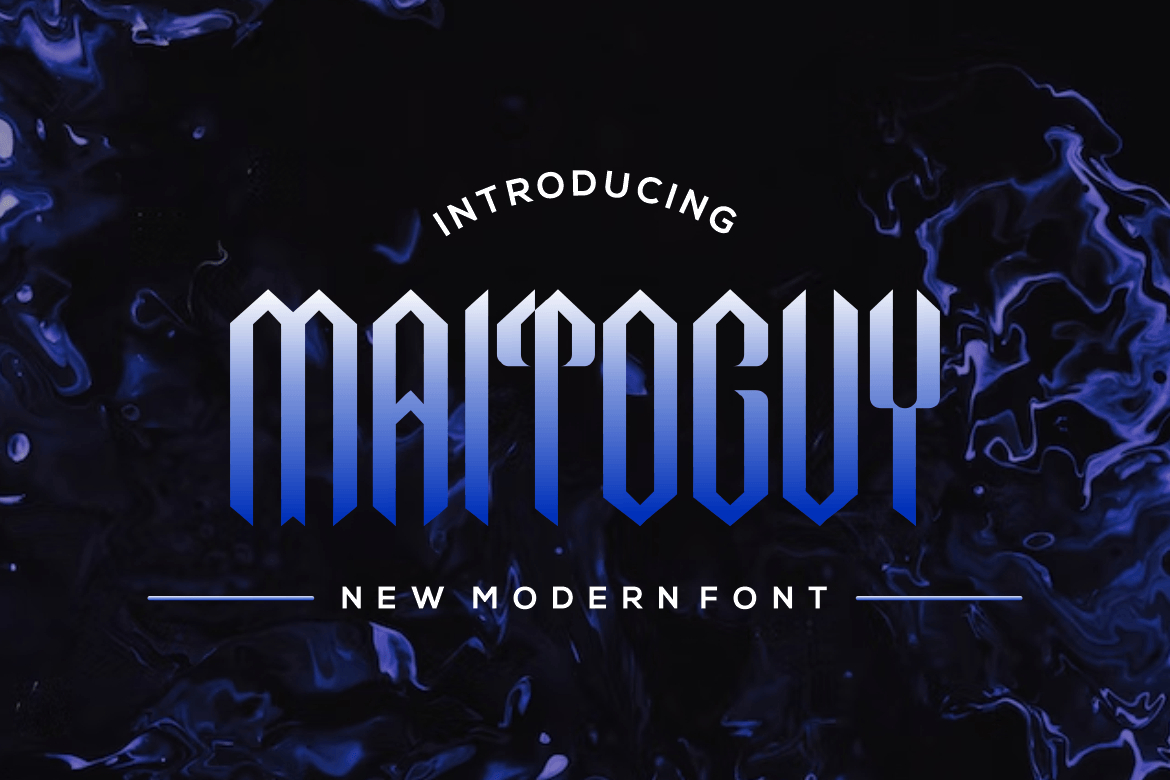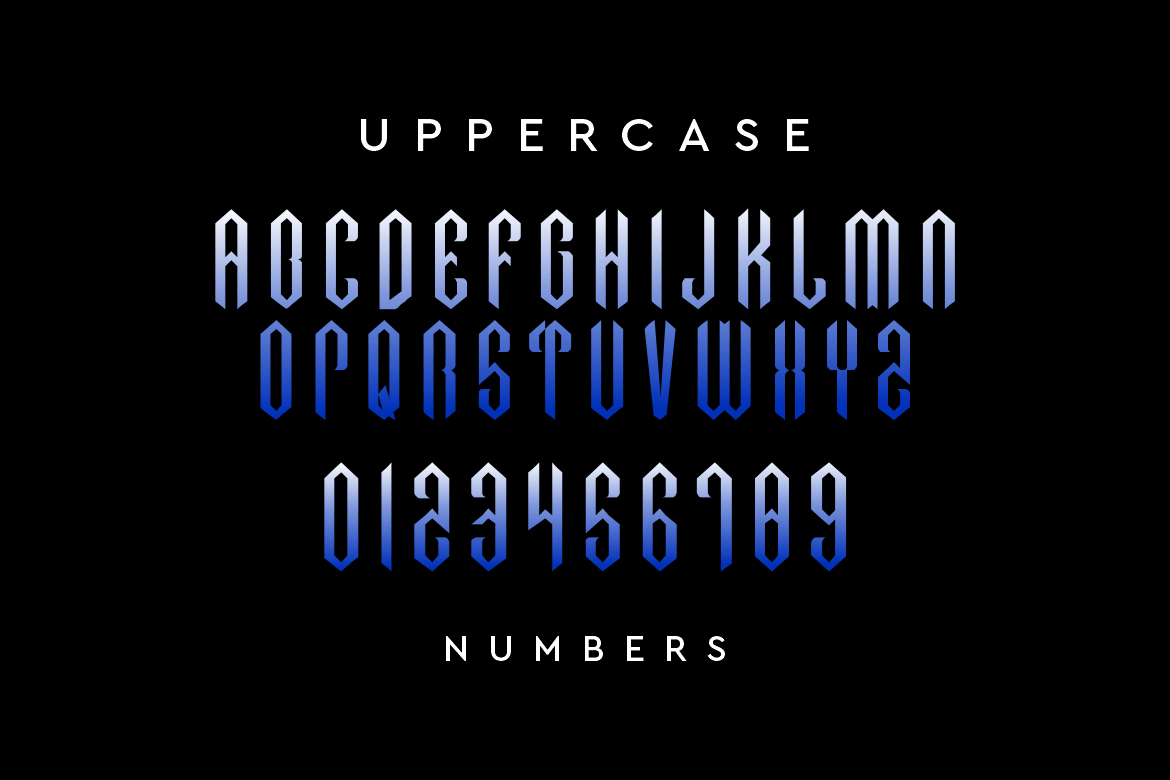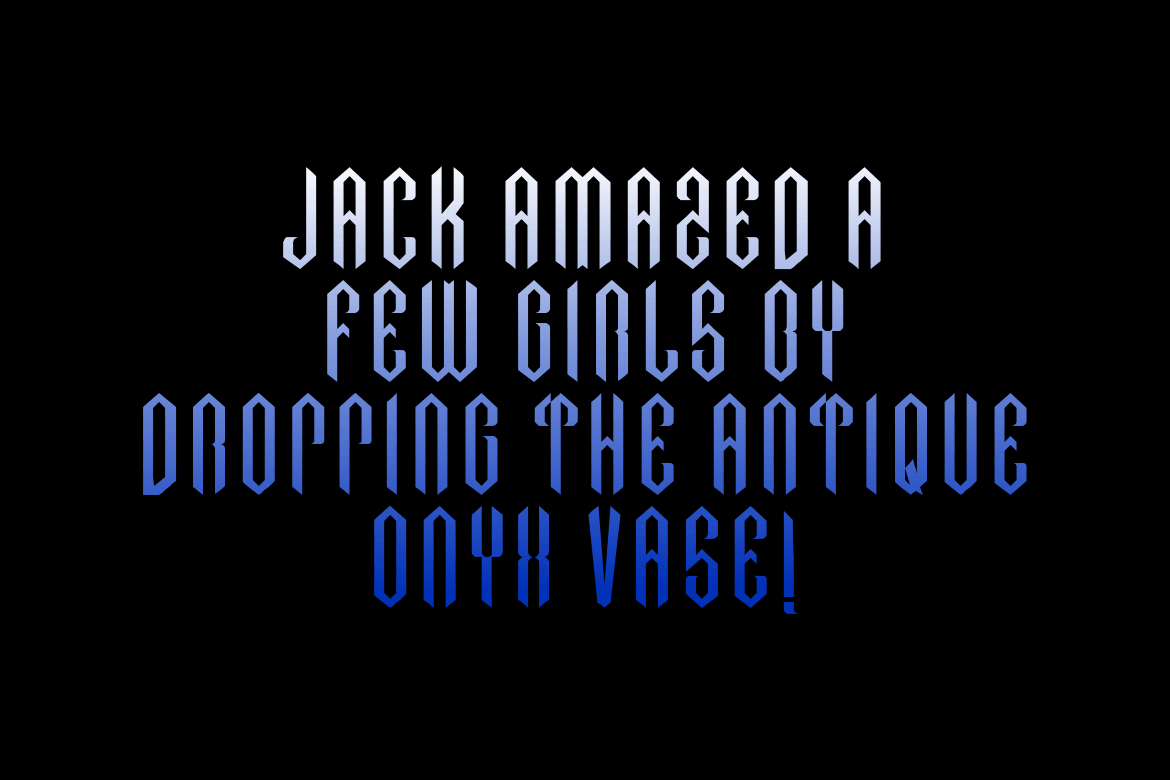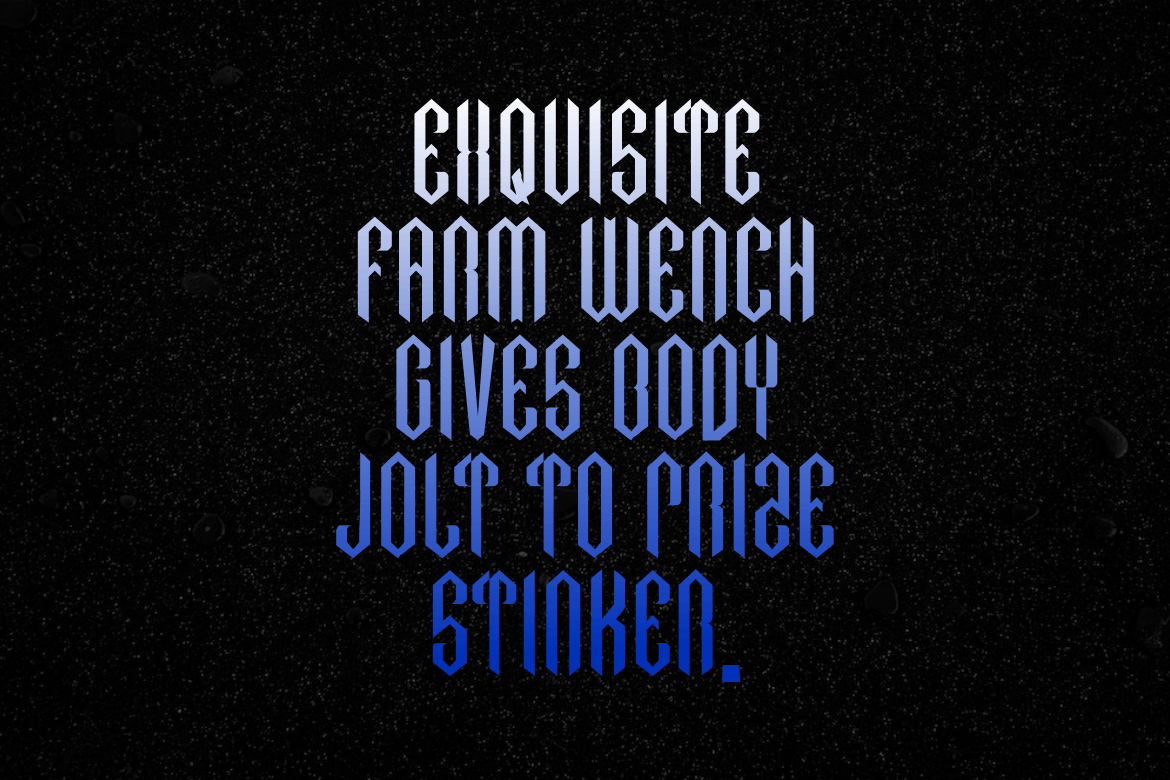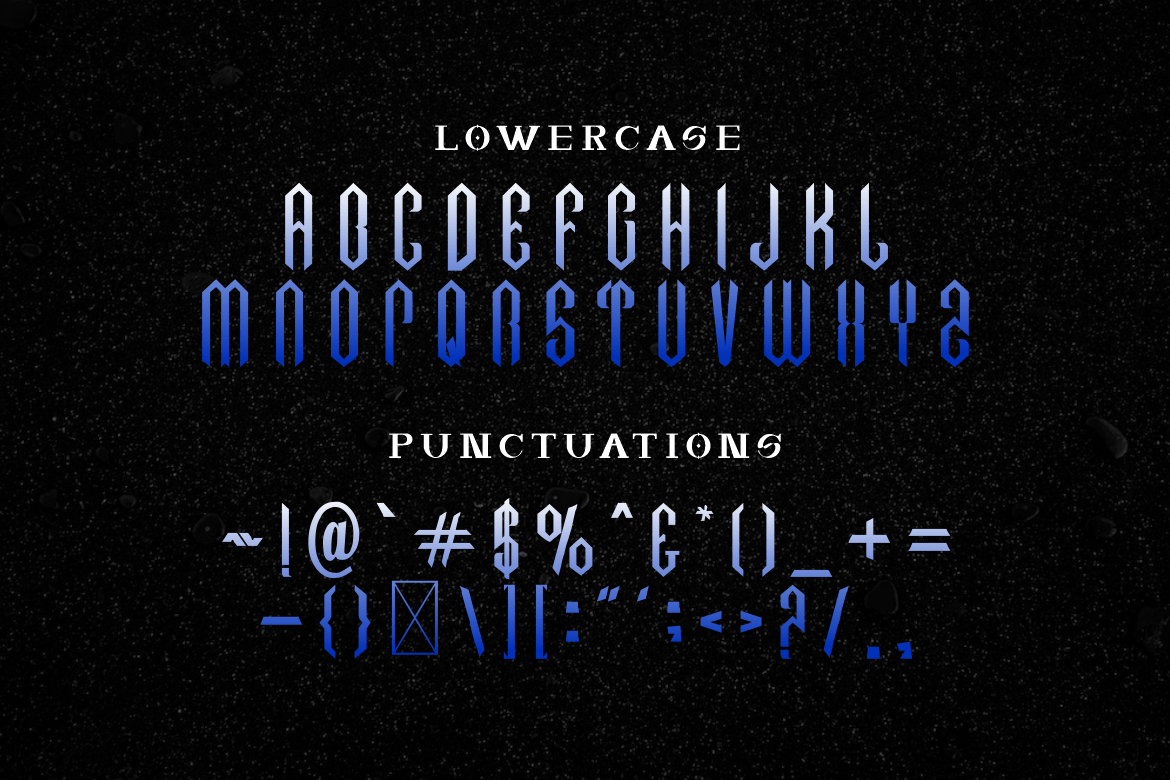
About Maitoguy Font
Maitoguy is a unique blackletter font that feels beautiful, classy, elegant, and modern. This font is perfectly suited for a wide variety of projects, such as signature, stationery, logo, wedding, typography quotes, magazine or book covers, website headers, clothing, branding, packaging design, and more.